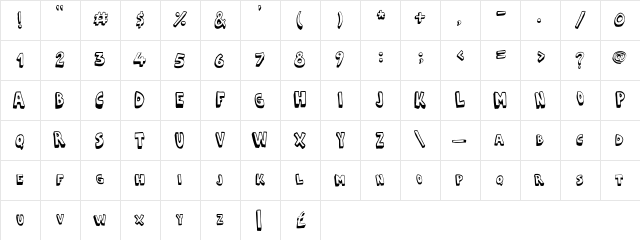
Cartoonia_3D Regular
Design Context for Cartoonia_3D Typeface
Cartoonia_3D trades formality for fun, with bouncy, characterful letterforms that bring warmth and energy to any project.
Great for children's books, toy packaging, family event branding, and casual consumer-facing design.
Font Pairing: Pairs well with a rounded or humanist sans for body copy, maintaining the friendly tone without relying on Cartoonia_3D to carry extended reading.
Pro Tip: Avoid using Cartoonia_3D for long passages of text — it works best for headlines, labels, and short calls to action.